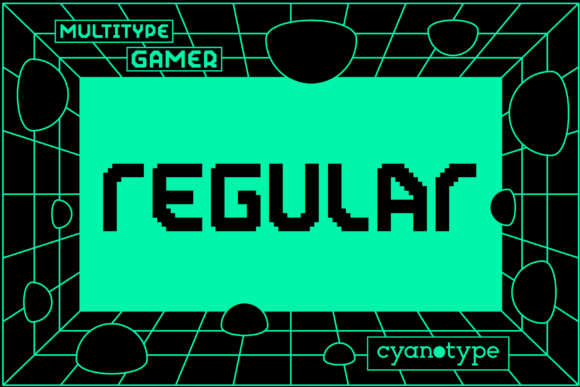
Unleash your gamer spirit with the Gamer Regular font, a visionary font that's breaking boundaries in the world of pixel art. This revolutionary display font boasts a daring pixelated design that will add a turbo boost of style to your creative projects.
Enter a world where sharp edges and captivating angles unite to form letters that dance with energy. The Gamer Regular font is a masterpiece of modernity, combining the charm of the past with the dynamism of the future. It's a font that embodies individuality and innovation, reflecting the spirit of those who dare to stand out.
With Gamer Regular, you can craft logos that radiate personality, headlines that demand attention, and social media graphics that captivate audiences. Its electrifying charm will ignite your designs, leaving a trail of digital excitement wherever you go.
Step into a dimension where pixels are transformed into art, and where creativity knows no limits. The Gamer Regular font is more than just a collection of characters; it's a gateway to a universe of endless possibilities. Let your imagination soar as you weave your creative spells, crafting visual wonders that will mesmerize and inspire.
Don't just settle for ordinary fonts; embrace the extraordinary with Gamer Regular. Break the mold, defy expectations, and create designs that pulse with life. Experience the rush of adrenaline as your projects take on a whole new dimension, fueled by the raw power of this pixelated masterpiece.
This font is a labor of love, meticulously crafted by the talented team at Cyanotype. With each pixel carefully positioned, Gamer Regular reflects the dedication and passion of its creators. It's a font that speaks to the hearts of gamers, artists, and innovators alike.
As you embark on your creative journey with Gamer Regular, you'll discover a font that's not just a tool; it's a comrade, a fellow adventurer ready to conquer the digital realm alongside you. Together, you'll create a legacy of awe-inspiring designs that will leave a lasting impact on the world.